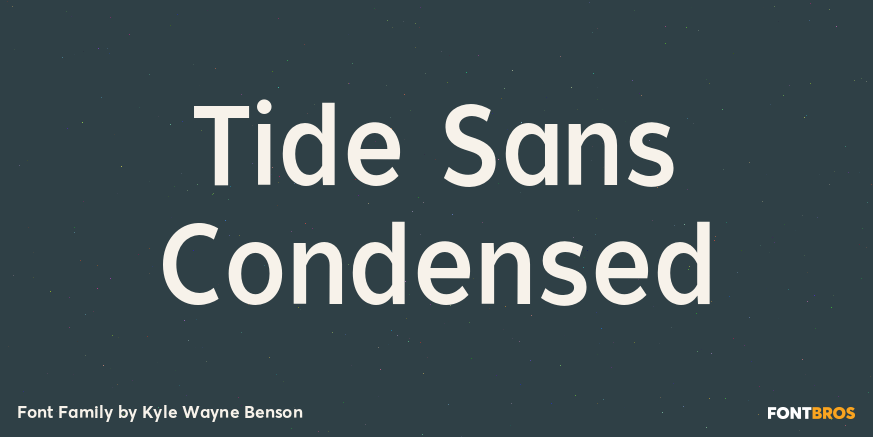
Tide Sans Condensed
About Tide Sans Condensed
Tide Sans Condensed is fresh, carefree, and just as good looking as its extended brother, Tide Sans. The Tide Sans family includes beautiful italics and an overall affable look lost somewhere between a humanist and a neo grotesque. Tide Sans does the…